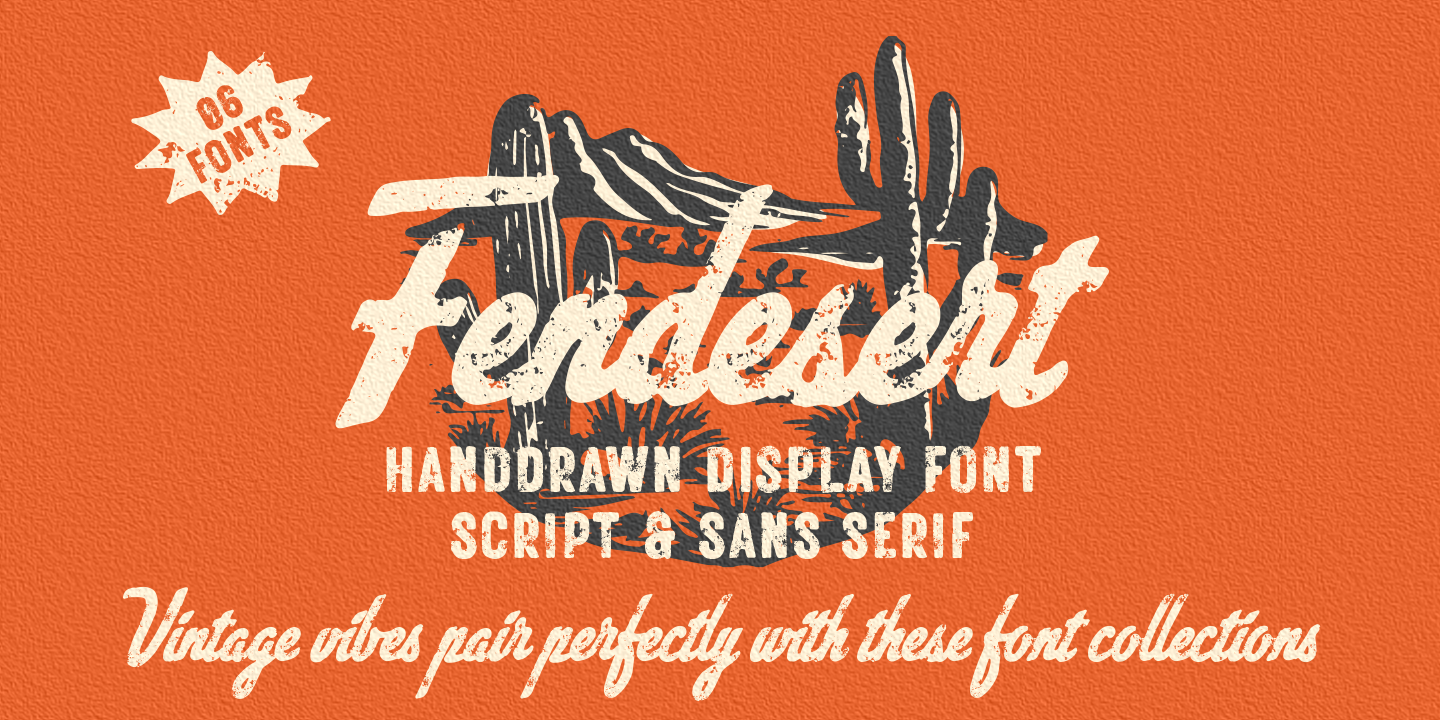
Fendesert Font Free Download – A rugged, weathered typeface inspired by desert landscapes and vintage exploration, perfect for adventure-themed designs. Commercial projects require licensing, but free personal testing is available.
Where to Use Fendesert Font?
This distressed display font excels in:
• Outdoor/adventure brand logos
• Travel agency promotions
• Vintage map designs
• Desert festival posters
• Craft beer/whiskey labels
• Retro National Park merchandise
Why Fendesert Font Stands Out
This font captures the spirit of exploration with:
→ Authentic wind-eroded texture effects
→ Uneven baseline mimicking hand-set type
→ Special "sun-bleached" alternate characters
→ Perfect for laser engraving on wood/metal
→ Includes rare compass rose ornaments
Fendesert Font Kit Includes
Regular and Extra-Distressed versions
20+ exploration badge templates
Alternate "sand-damaged" glyphs
Special desert landscape silhouettes
✓ 600+ handcrafted glyphs
✓ OpenType stylistic sets
✓ Perfect for outdoor merchandise
✓ Includes vintage topographic patterns